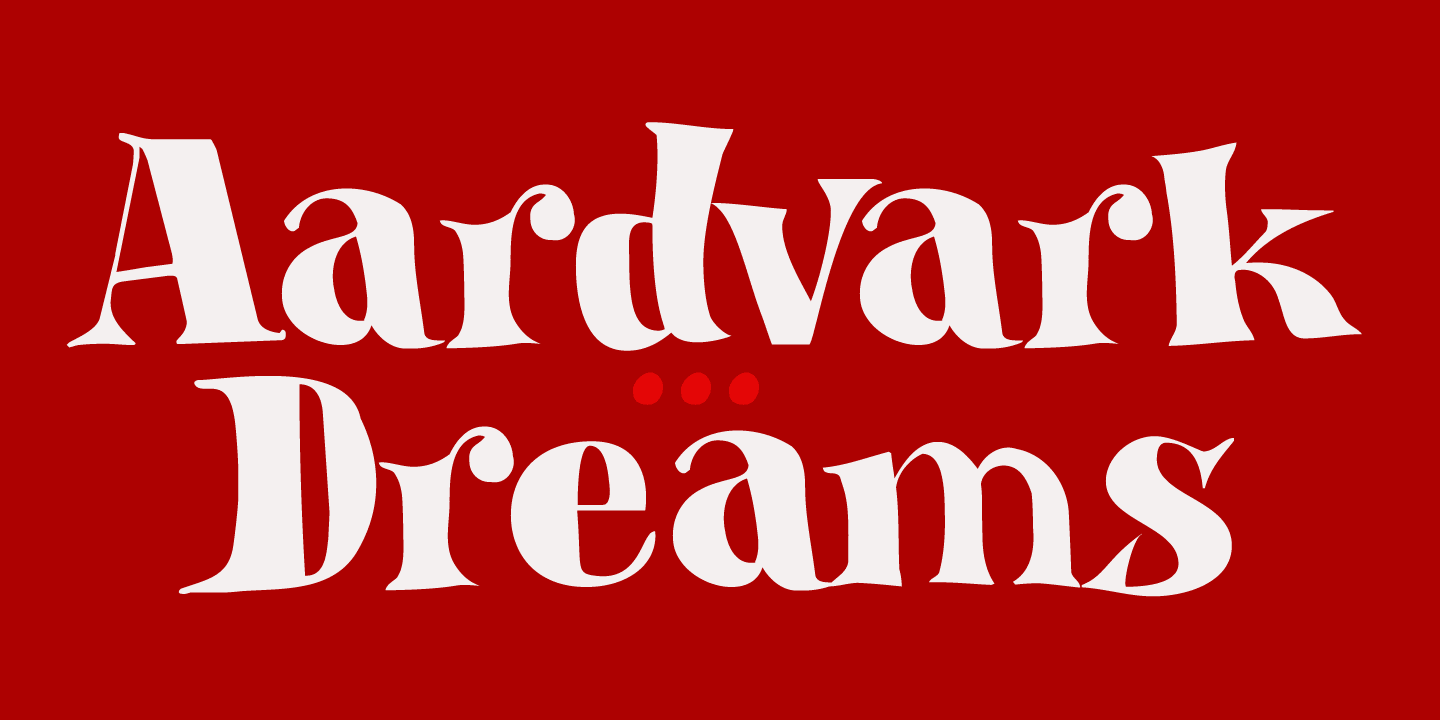
Aardvark Dreams is a hand drawn font published by Hanoded.
Aardvark Dreams… Yes, I guess this is the first font ever to have an aardvark in its name! Aardvark Dreams is a bit of an unusual font. It is didone-ish in style, but the glyphs are slightly warped, giving them an almost liquid appearance.
The Vark is a cute font for children’s books, games, posters and artwork. It could also work on psychedelic record-sleeves, but I guess they don’t make ‘em no more. Aardvark Dreams comes with a bunch of ligatures and a whole lotta diacritics!